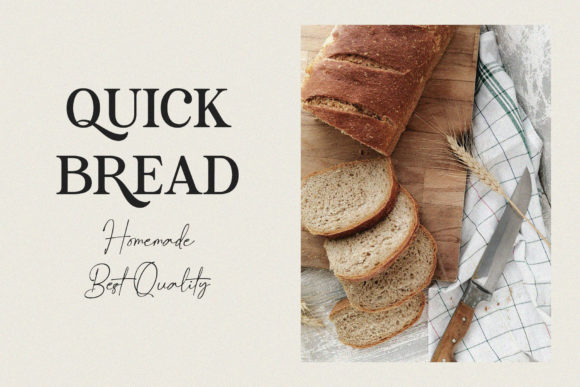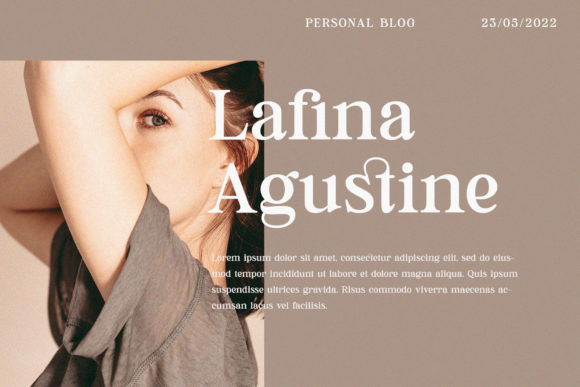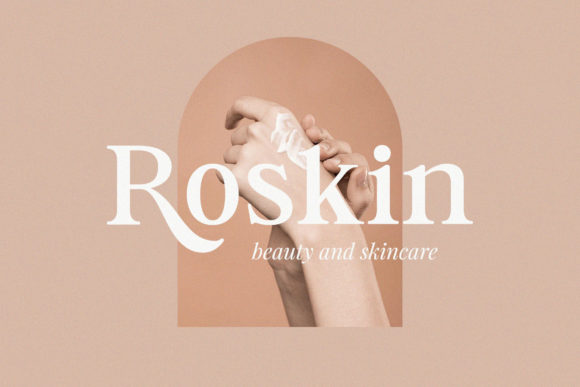
Introduction to Kenilla Font
Have you ever stared at a blank page, trying to come up with the perfect design for a client or your own creative project, only to be struck by a moment of pure inspiration? That’s exactly what happens when you come across the Kenilla Font – a stylish and bold serif font that’s sure to elevate any design to the next level.
As a designer, you know how crucial it is to have the right tools at your disposal. That’s why the Kenilla Font is a valuable addition to any design arsenal. With its high-quality design and versatility, this font is perfect for a wide range of applications, from product packaging and branding projects to magazine covers and social media graphics.
Key Features of Kenilla Font
- Unique, modern design style suitable for a wide range of creative applications
- Supports various languages, making it a versatile design resource
Honest Review: Kenilla Font
As a designer, I’m always on the lookout for high-quality design resources that can elevate my creative projects. The Kenilla Font is one such resource that caught my attention recently. In this review, I’ll share my honest thoughts on what works well and what doesn’t.
- Unique and stylish design: The Kenilla Font has a distinctive, elegant design that can add a touch of sophistication to any creative project.
- Limited character set: The Kenilla Font has a relatively small character set, which may limit its usability in certain projects.
- No bold or italic weights: The font is available in regular weight only, which may not be suitable for projects that require bold or italic text.
Overall, the Kenilla Font is a solid design resource that can add value to your creative projects. While it has some limitations, its unique design and free download make it a great option for designers on a budget. With a little creativity, you can work around its limitations and create stunning designs with the Kenilla Font.
Tips for Getting the Most Out of Kenilla Font
To get the most out of the Kenilla Font, experiment with different font sizes, colors, and combinations with other design elements. You can also use the font’s transparent background to create unique and eye-catching designs.
The Kenilla Font is perfect for a variety of creative projects, including: